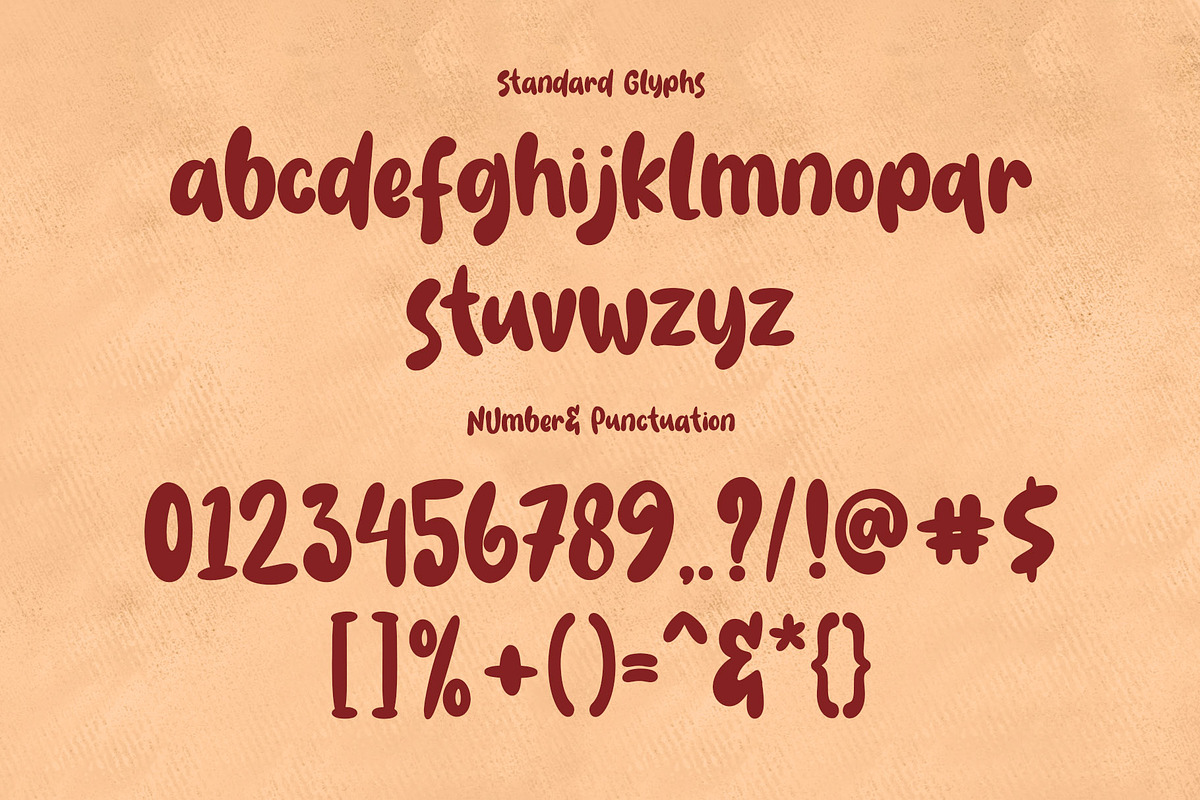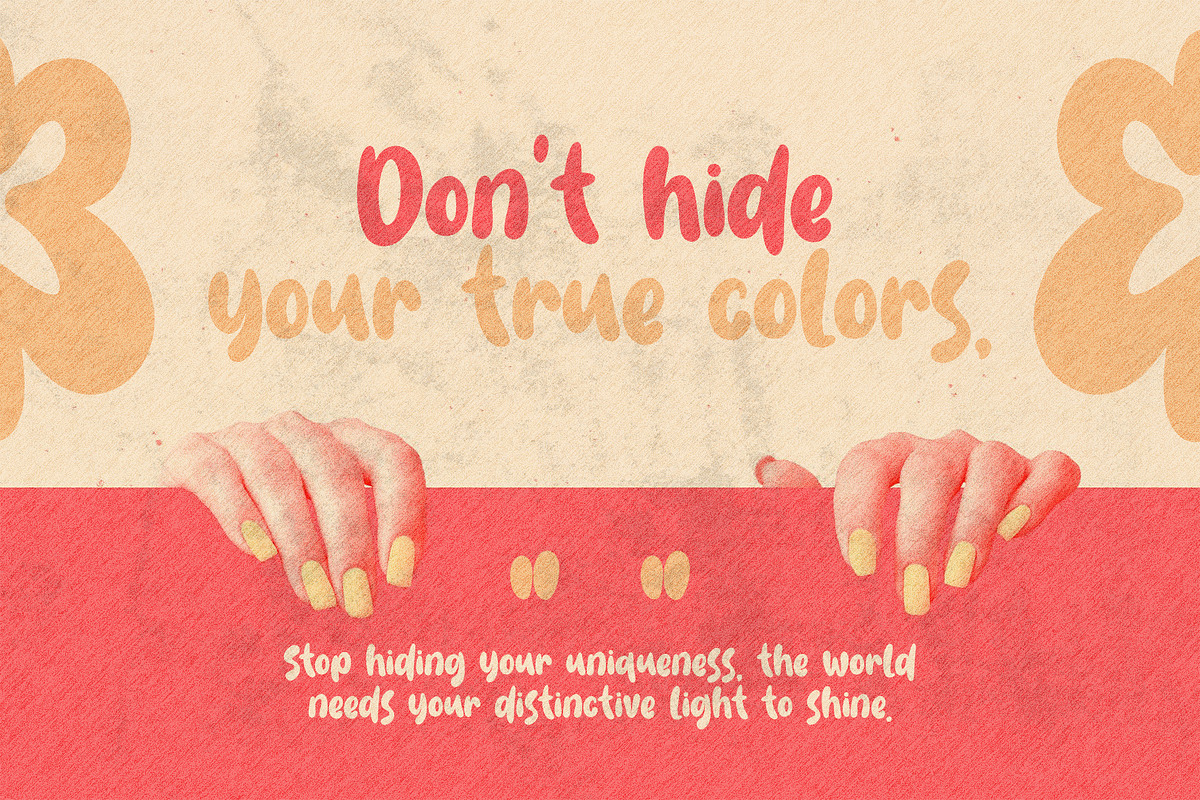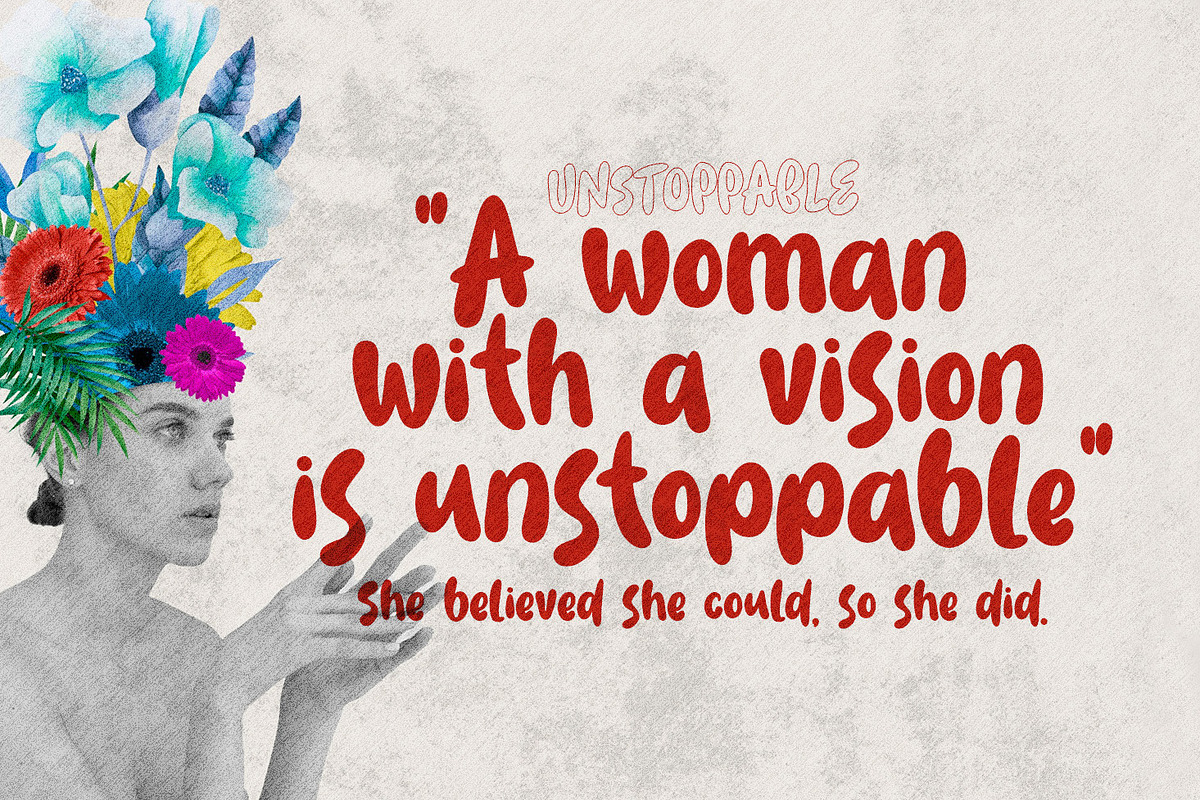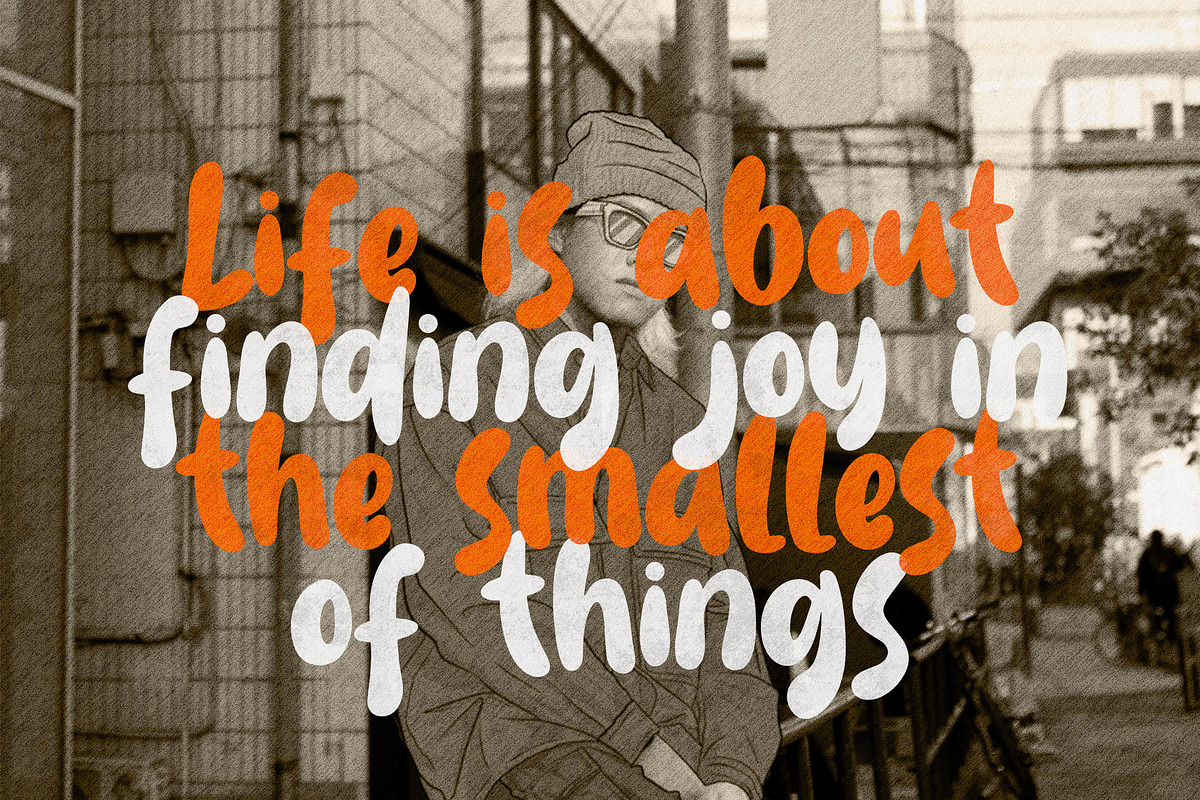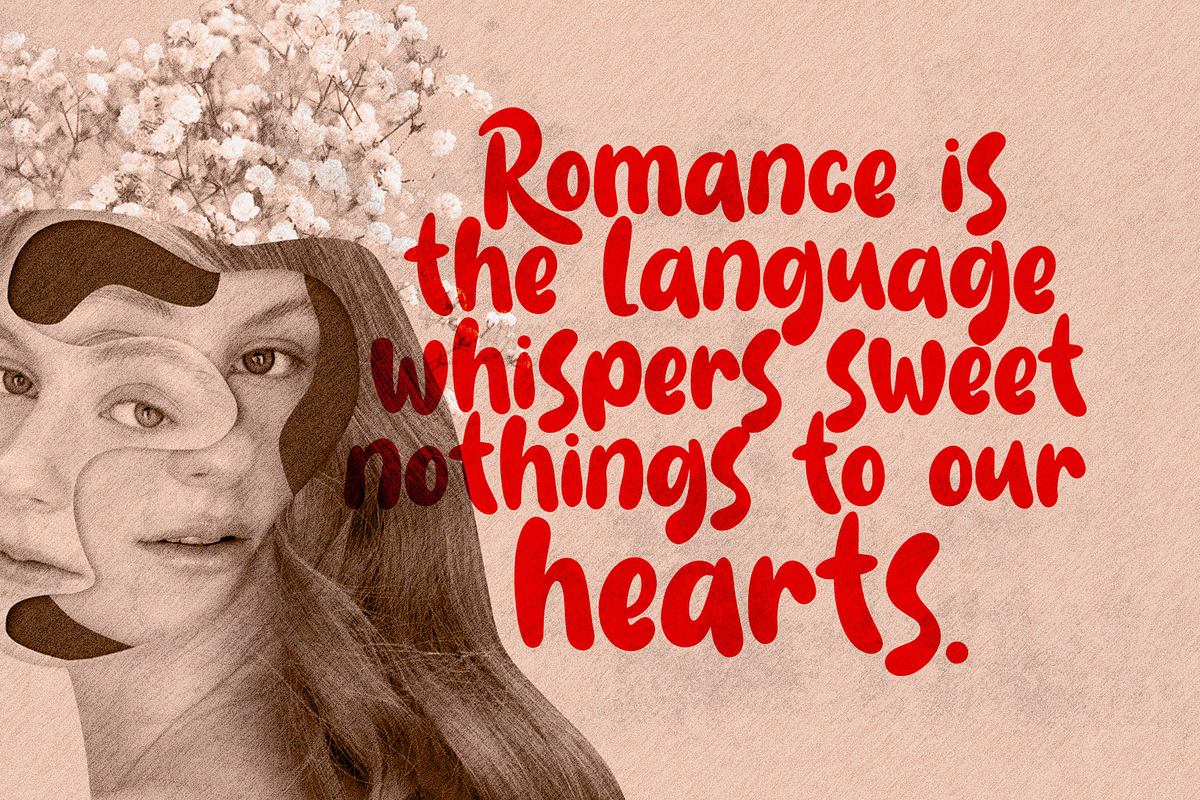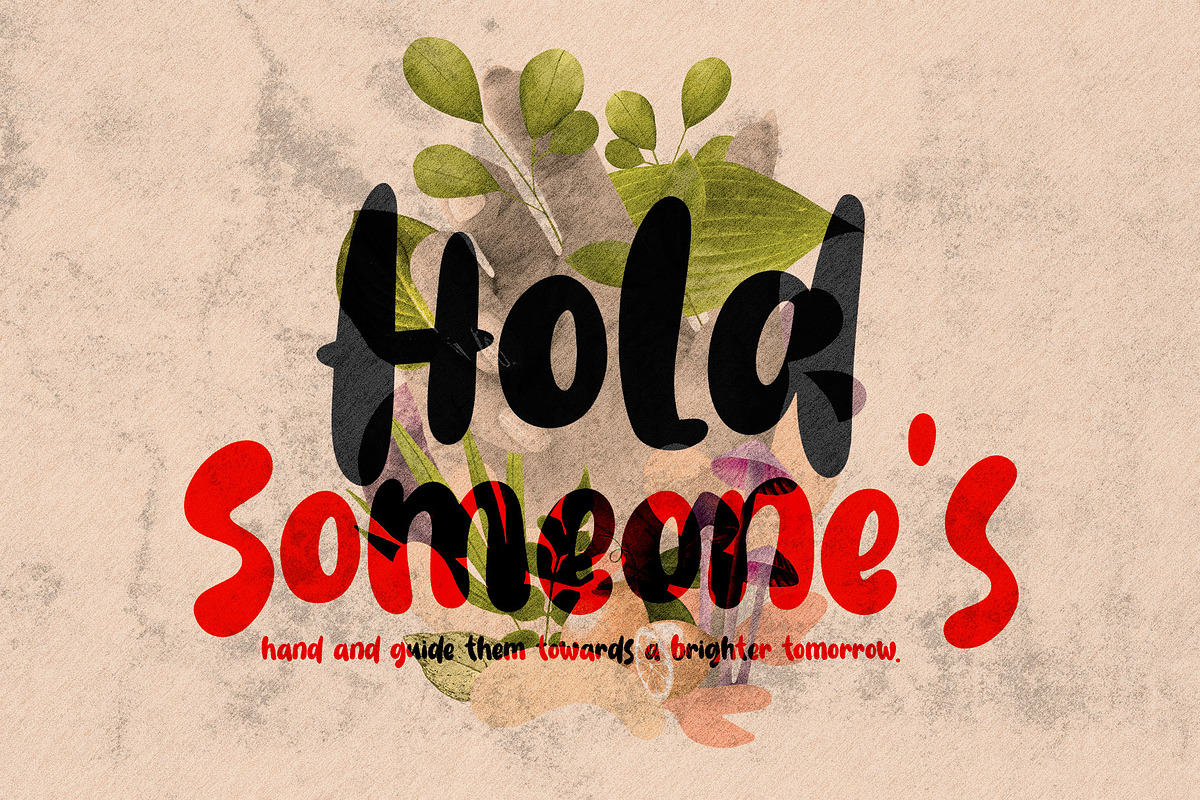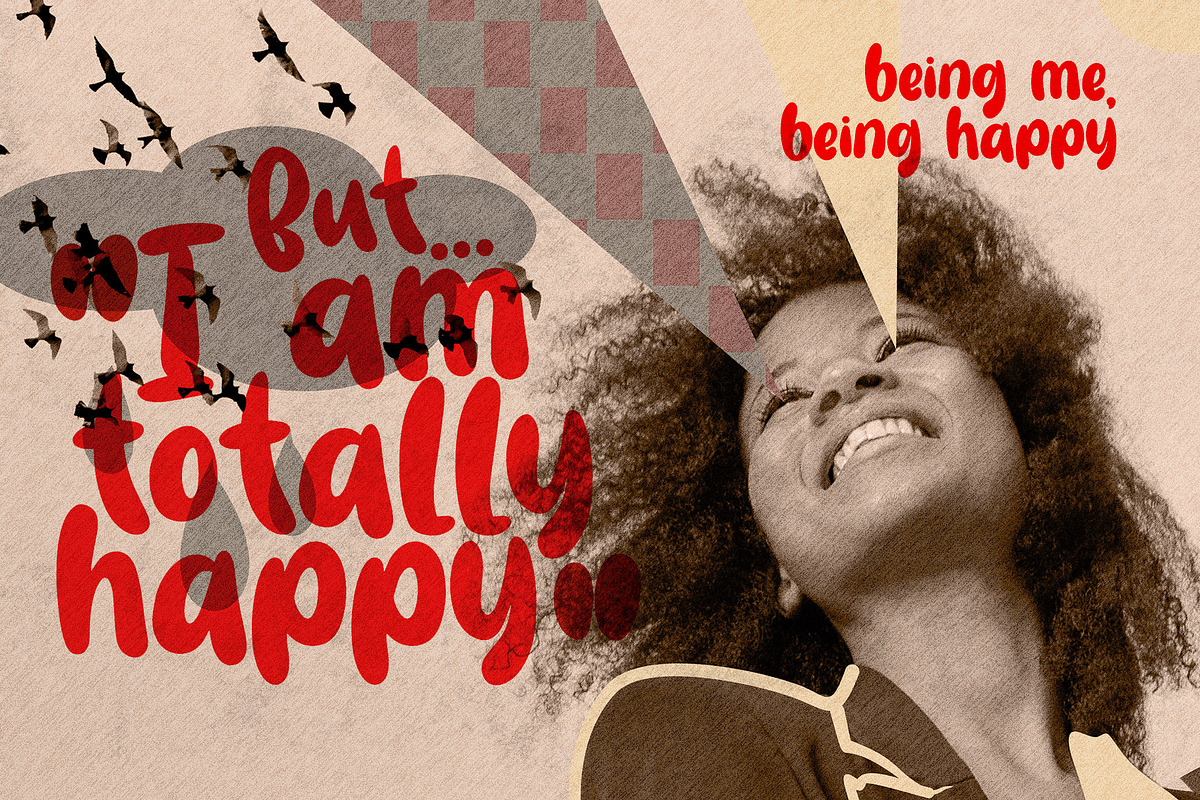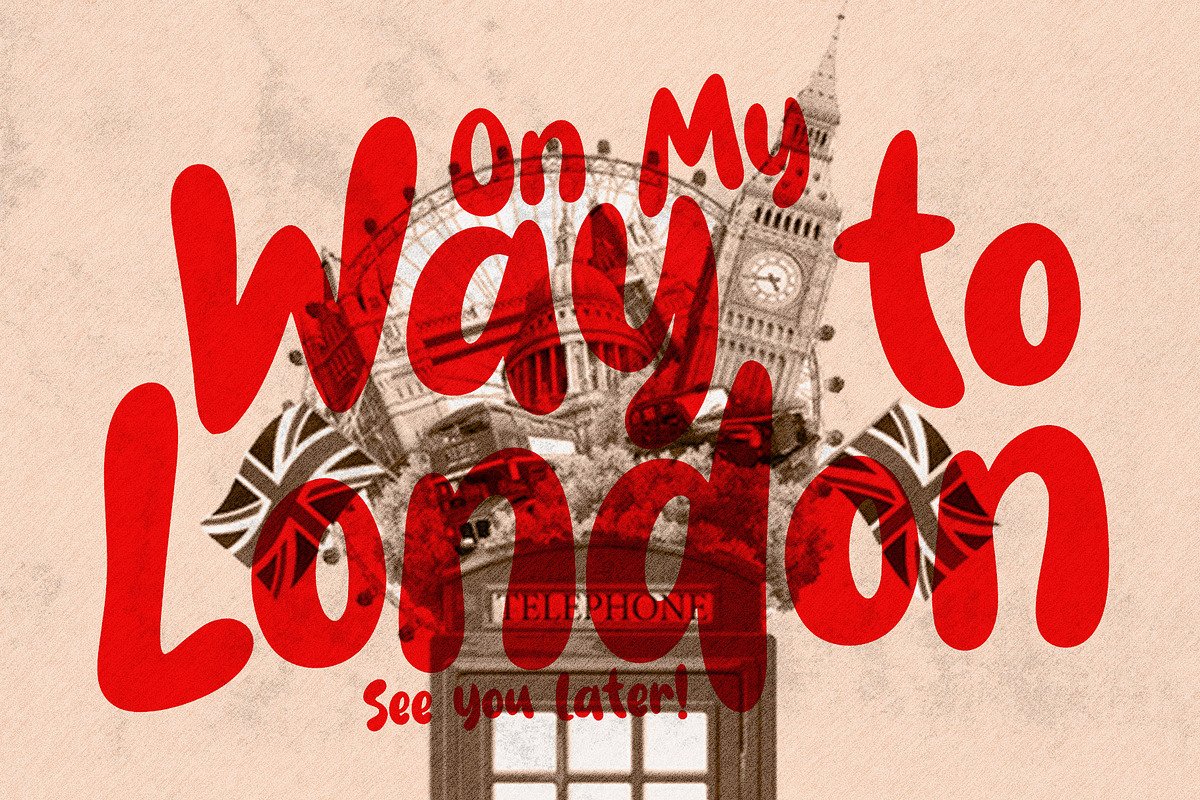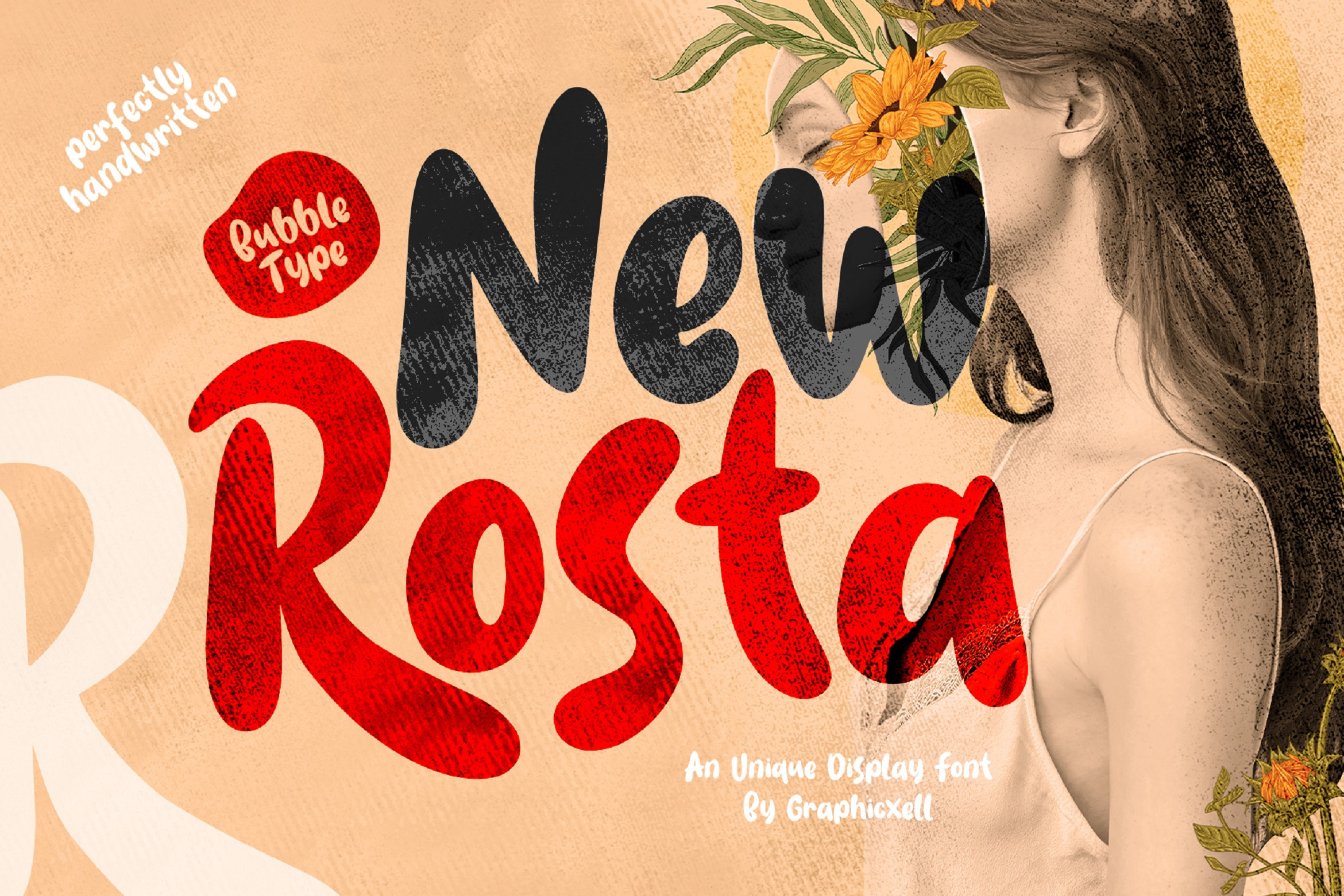
New Rosta Natural Handwritten Font
New Rosta Natural Handwritten Font is a unique display font that comes with a bubble type. This handwriting font is perfectly crafted to provide a natural writing style. This font mimics the handwritten graffiti where it comes with rounded letters to give a cool impression. The bubbly shape looks bold so that it is best for informal designs. Whether you want to make an impressive design for flyers, posters, etc., this natural handwritten font will make it perfect. In addition, the New Rosta Natural Handwritten Font is also useful to add personality and a high level of creativity to your design, thanks to its energetic letterforms. With this handwriting font, your design will also exude something fun so that attracting people’s attention is no longer something difficult. Not all letters are connected and that’s what makes it unique. Hope you can enjoy and use this handwriting font to get creative with your designs.